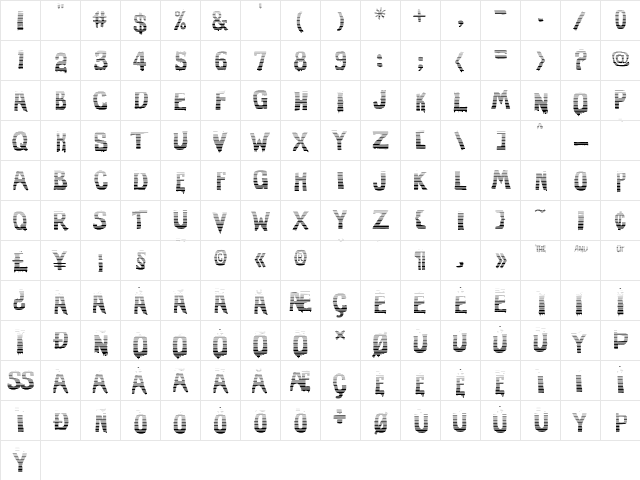
Evil Of Frankenstein Stripped
Design Context for Evil Of Frankenstein Typeface
Evil Of Frankenstein is a composed and adaptable typeface that performs quietly and consistently across a wide range of design contexts.